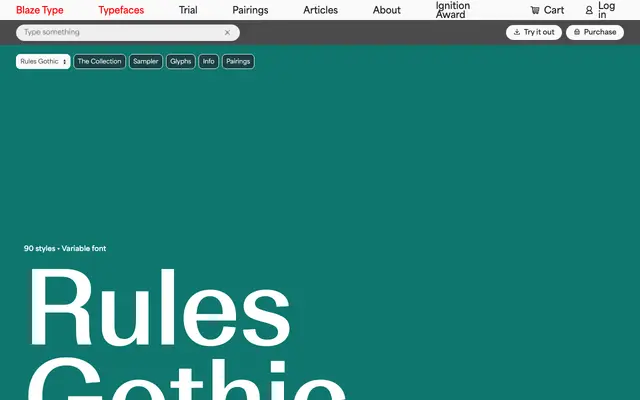
Rules Gothic
A 90-style grotesque family spanning five widths from Compressed to Expanded, each with nine weights and matching italics, available as a variable font.
Five sub-families cover the full width spectrum from Compressed through Condensed, Normal, Extended and Expanded, each carrying nine weights from Thin to Black with paired italics. The 90-style collection is also available as a variable font, giving designers continuous control across weight and width axes. The breadth of the system makes it well suited to branding and editorial work where a single typeface must perform across very different contexts.
A gothic sans-serif spanning five width families from Compressed to Expanded, sitting firmly in the grotesque tradition with its range of weights and italics across all widths.